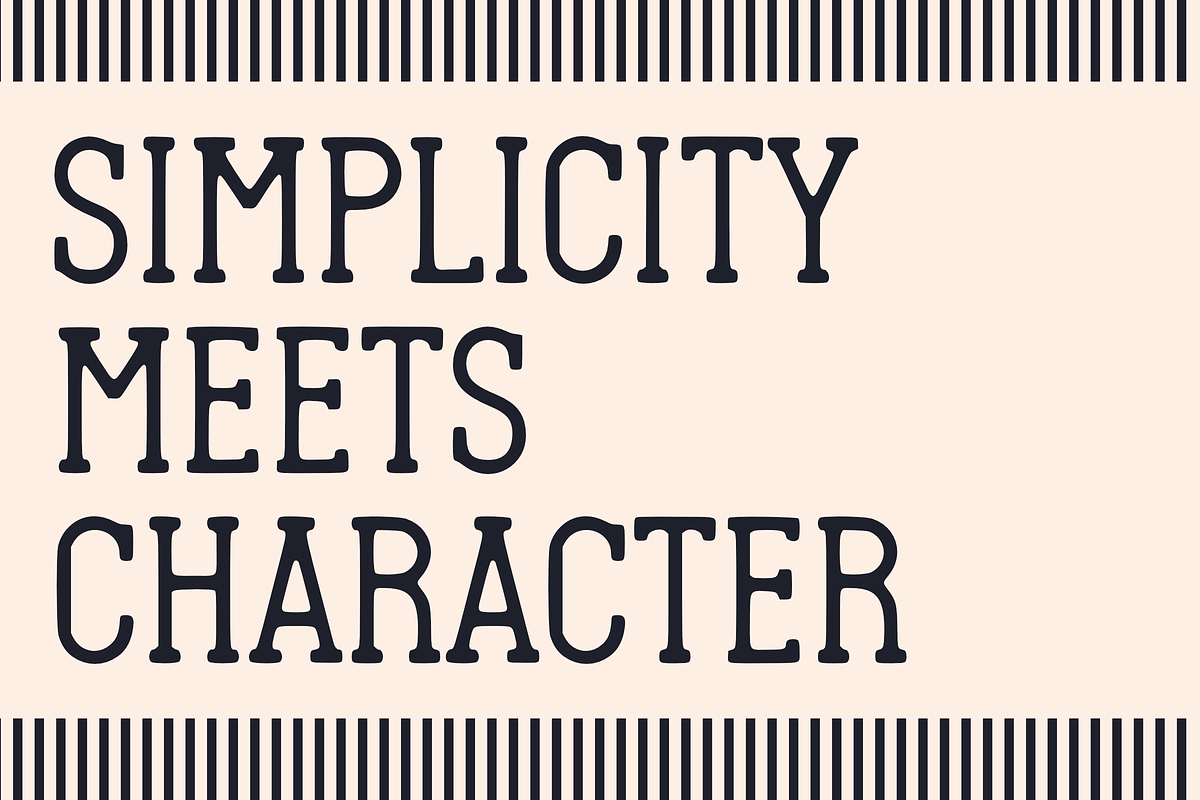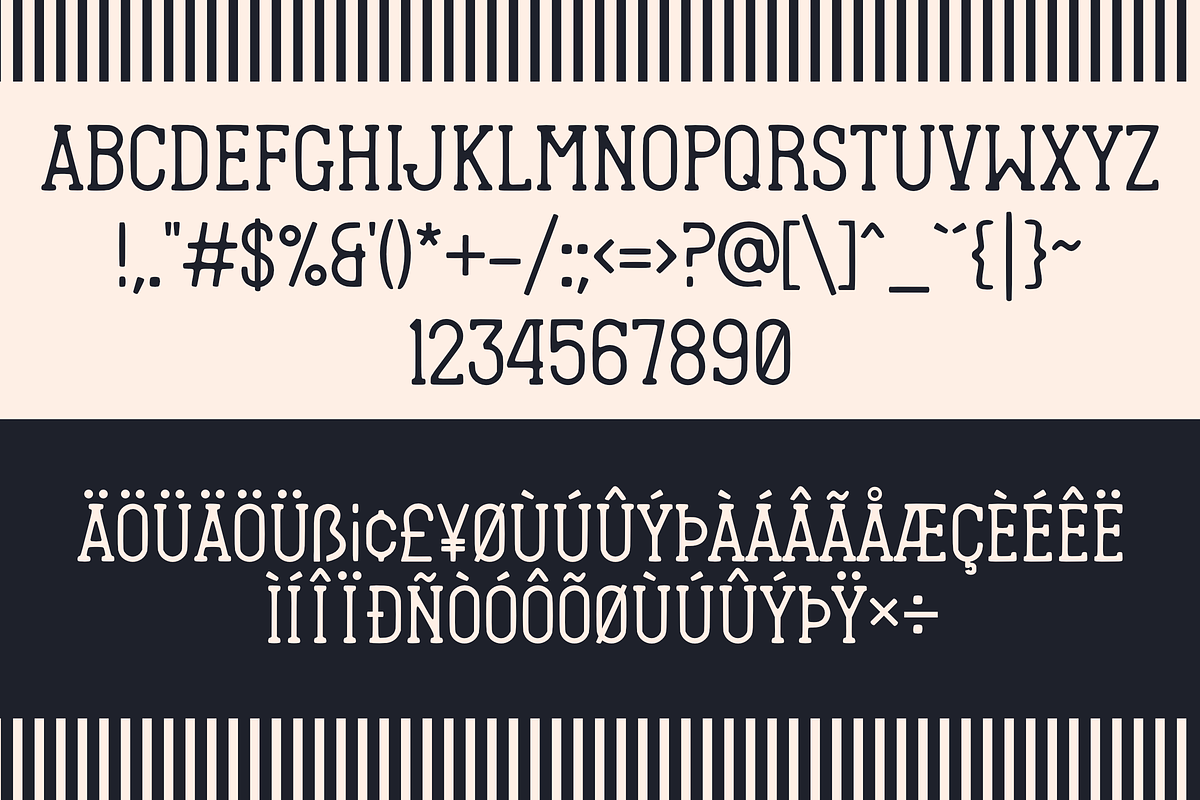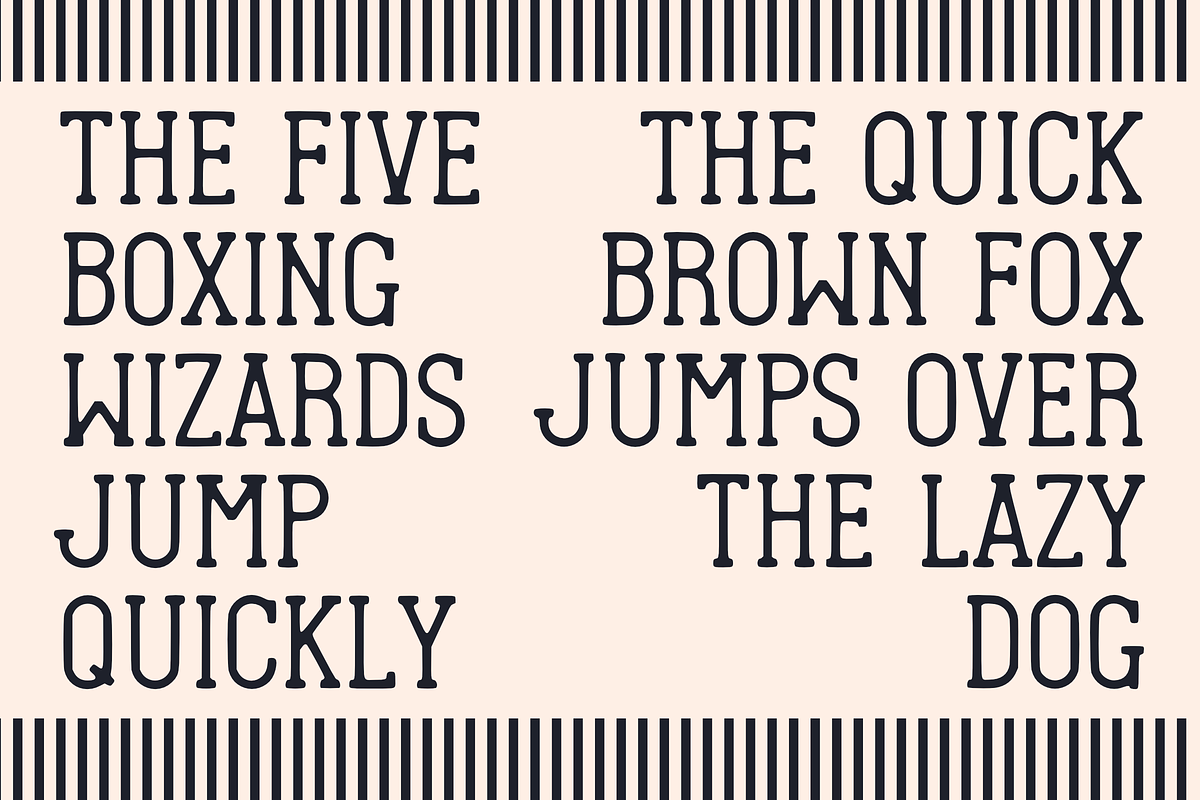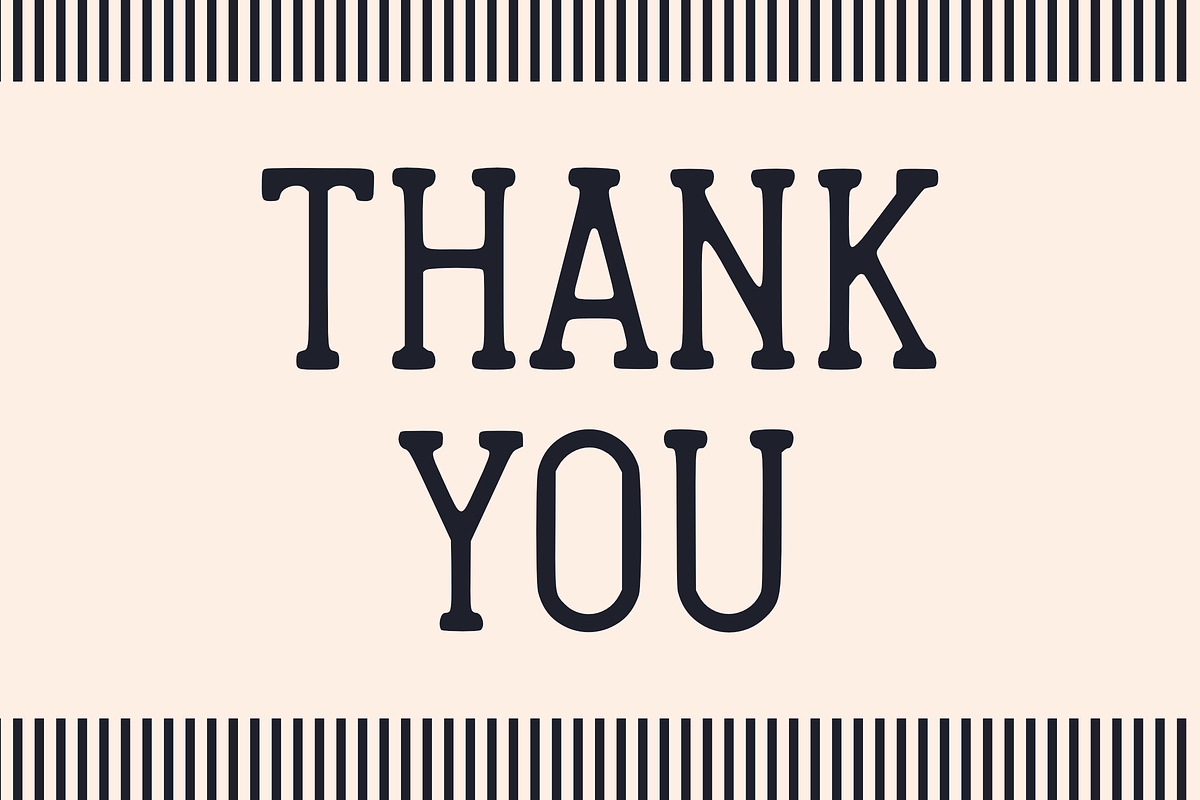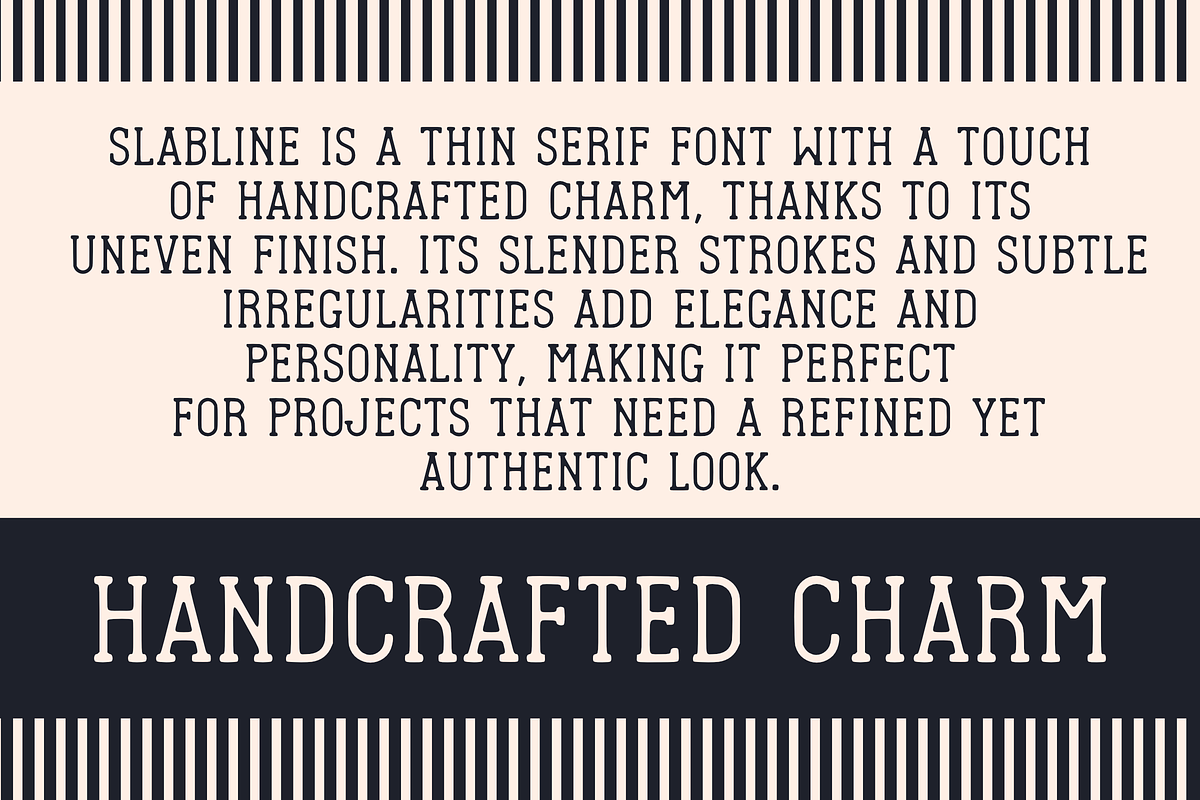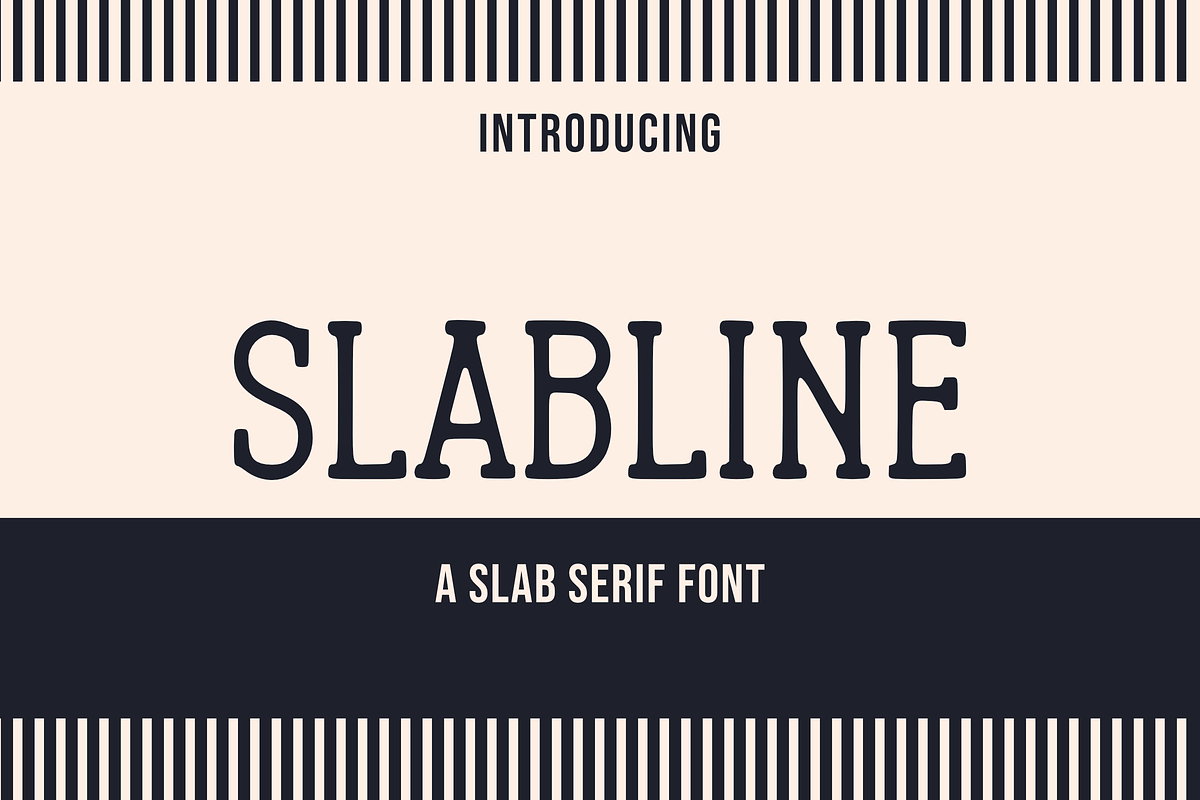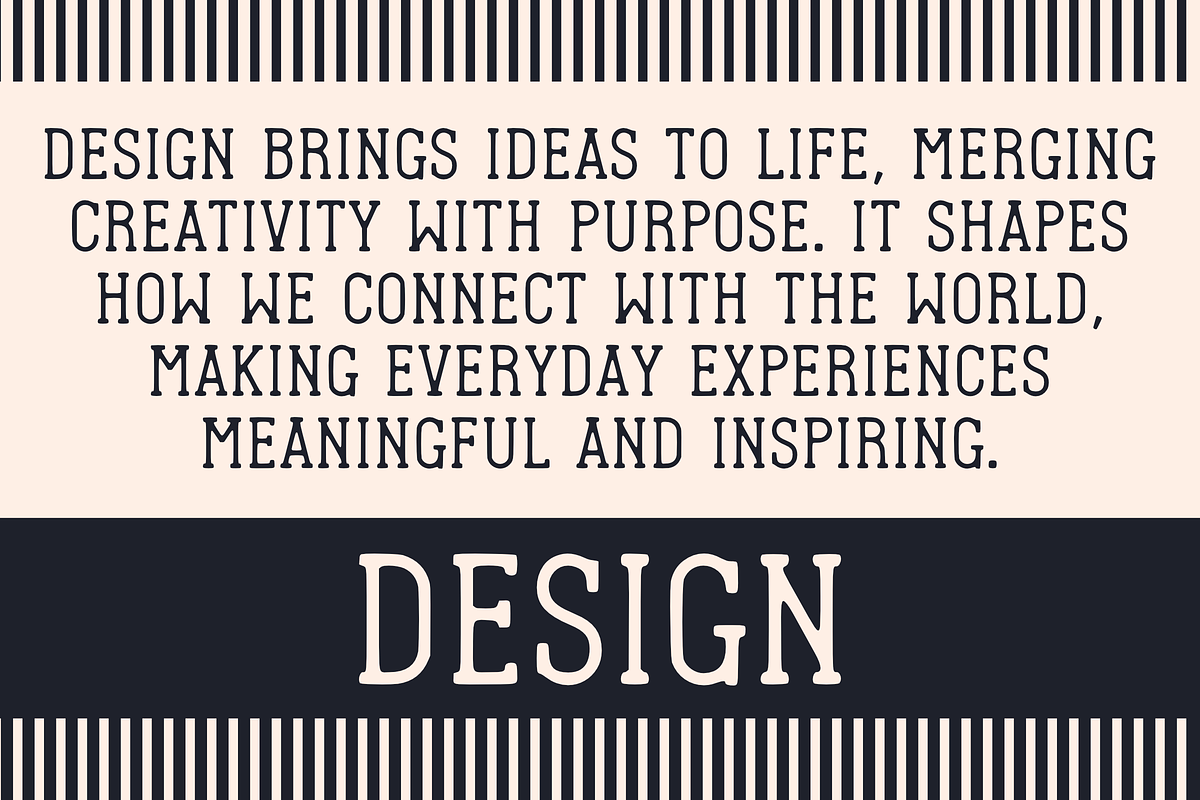
Slabline
Slabline is a thin serif font with a touch of handcrafted charm, thanks to its uneven finish. Its slender strokes and subtle irregularities add elegance and personality, making it perfect for projects that need a refined yet authentic look.